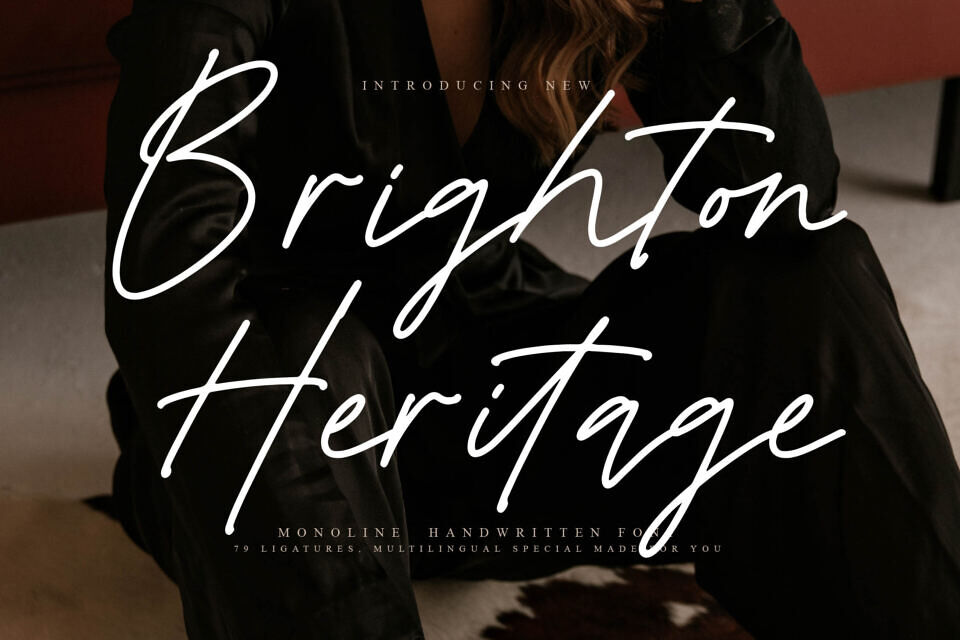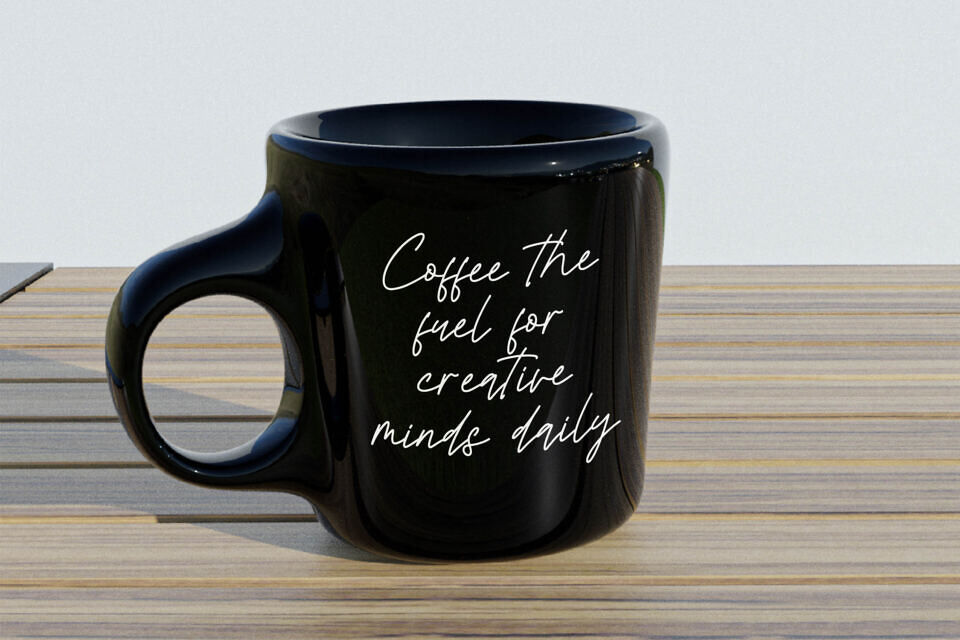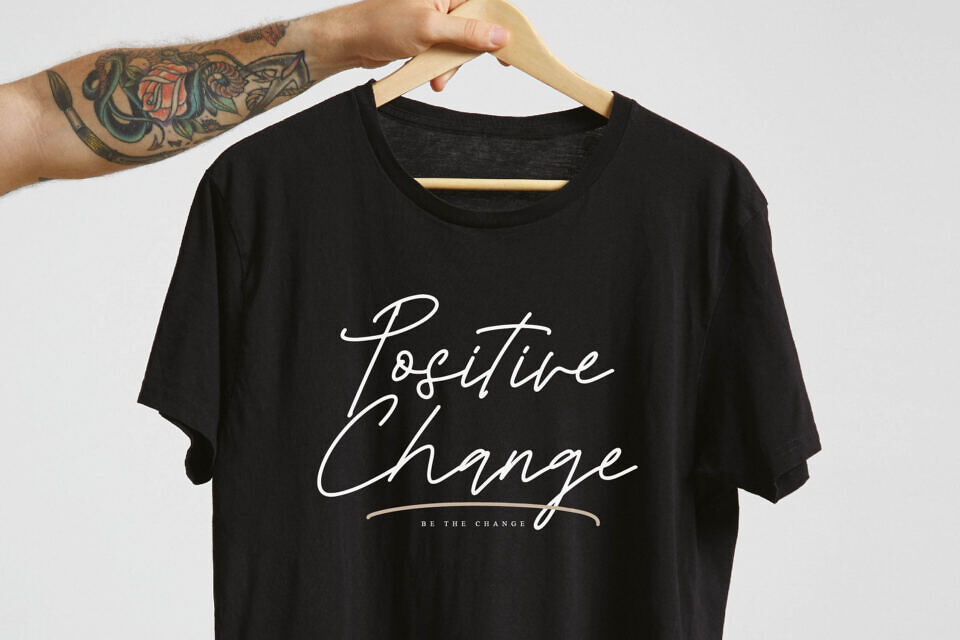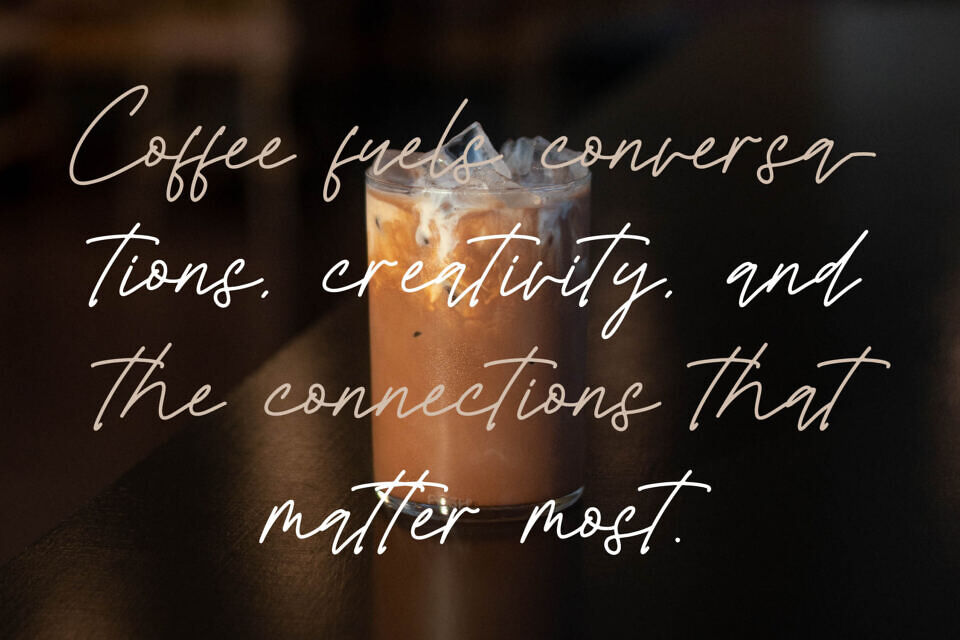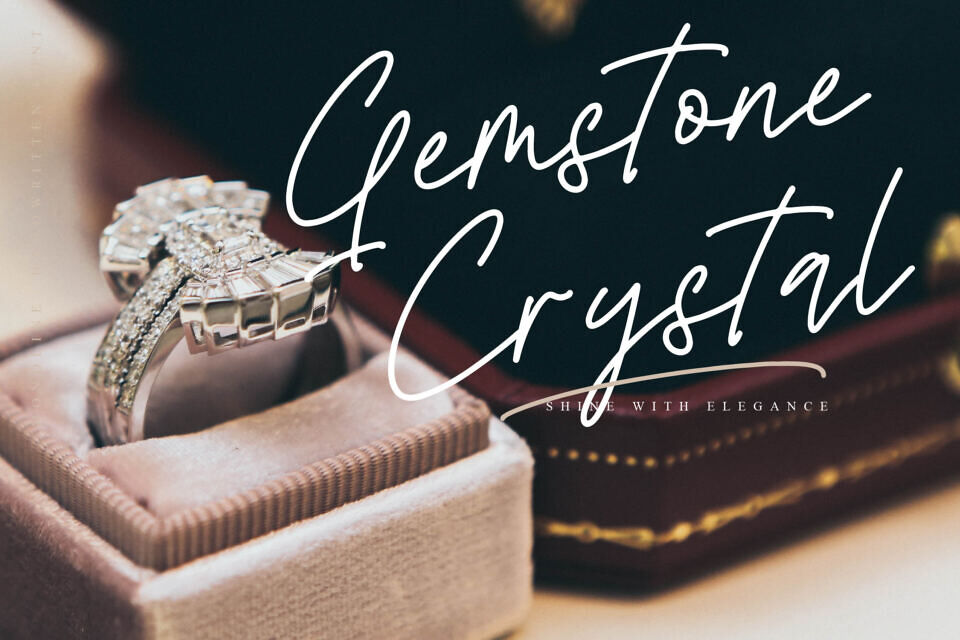
Brighton Heritage Font
Brighton Heritage is a sophisticated, modern font with a handwritten feel. Its smooth lines and balanced proportions create a clean, expressive look perfect for branding and design projects. With its elegant letterforms and high readability, it’s ideal for premium identities and professional typography.
The font combines simplicity with warmth, making it effortlessly stylish and authentic. Its versatility suits various uses, from luxury branding to social media and editorial layouts, offering a refined aesthetic for creatives.